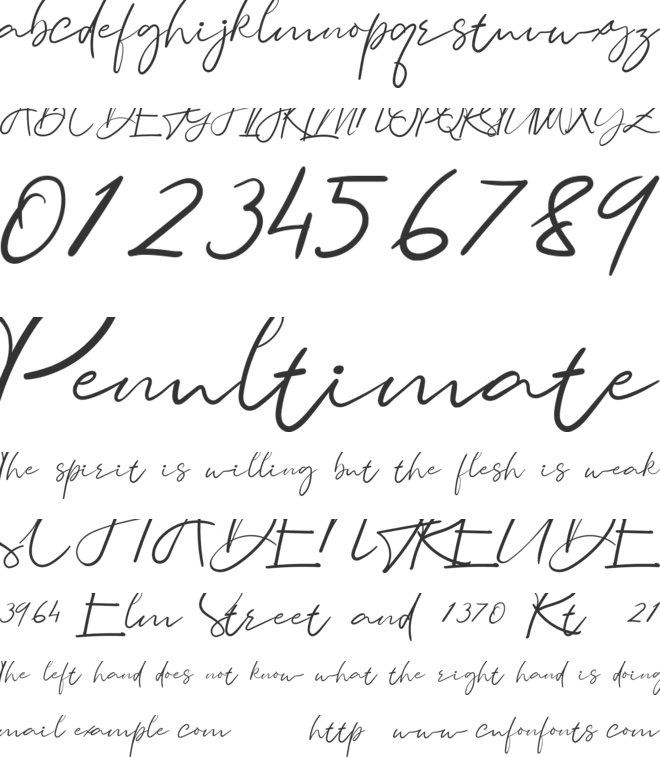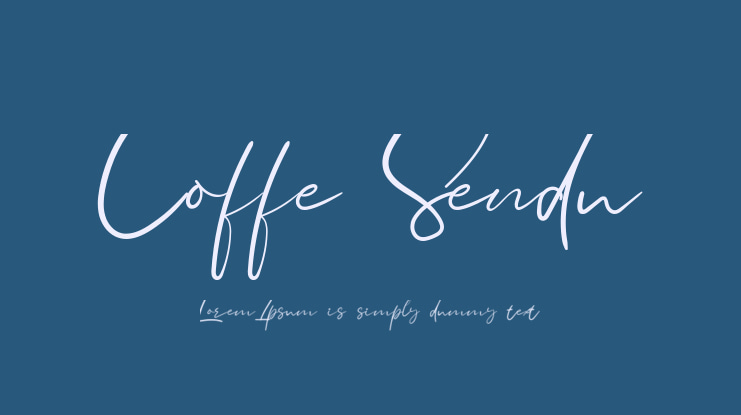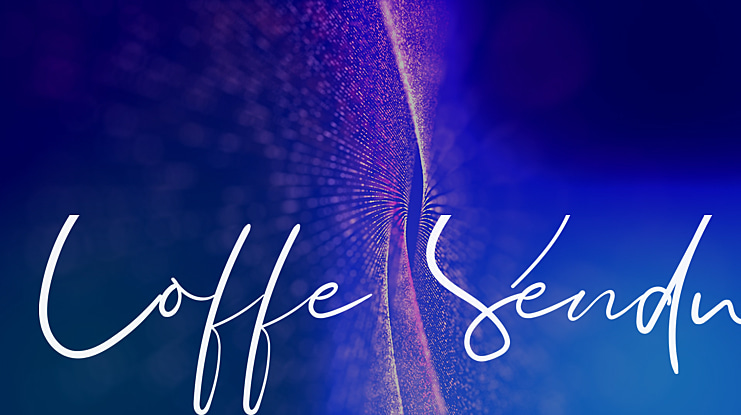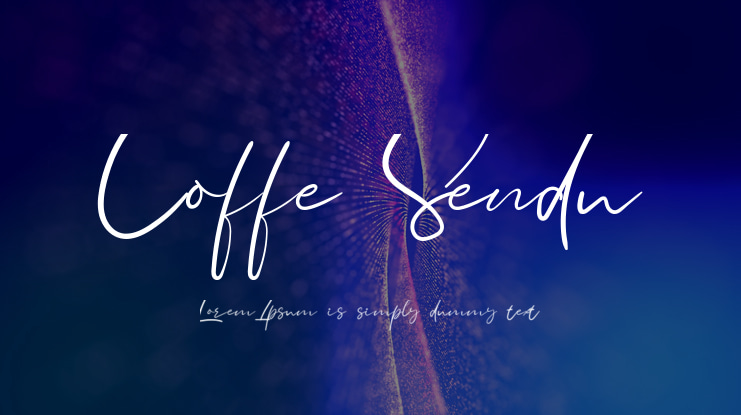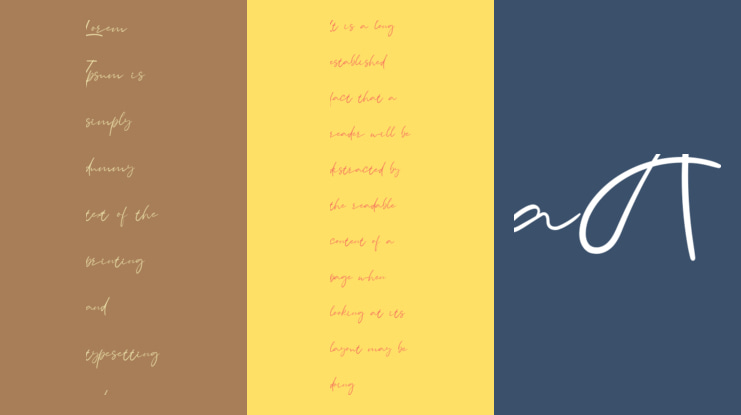
Coffe Sendu Font
Andang 2021
Is a cute and friendly brushed display font. No matter the topic, this font will be an incredibly asset to your fonts library, as it has the potential to elevate any creation.